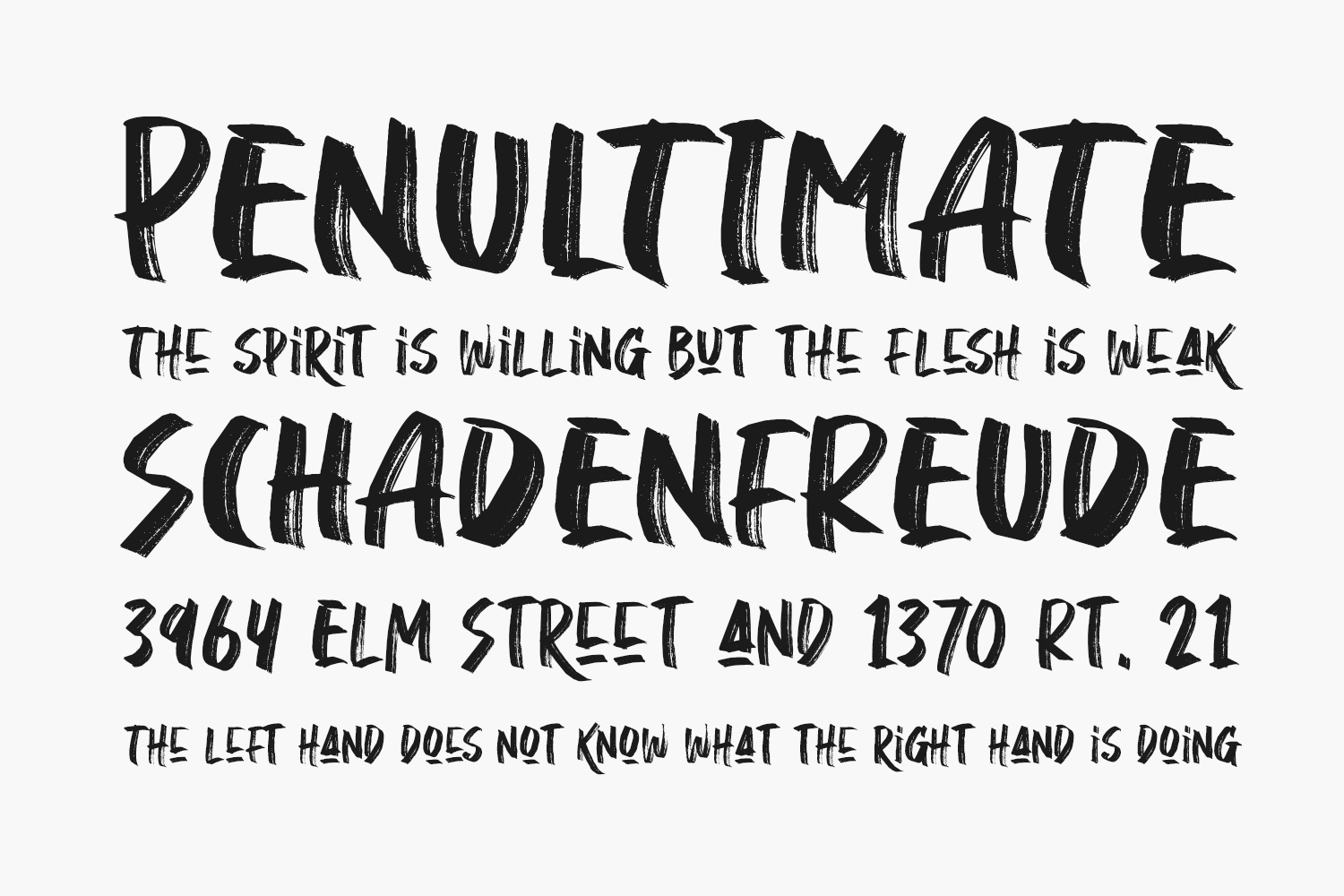
Daviton Free Font is a striking display font. It comes in 3 styles; brush, solid, and a svg version. It can be used to make realistic handwriting, for promotions, and much more. Daviton Free Font was designed by Saridezra and is free for personal use only. Please purchase the full version for commercial use.